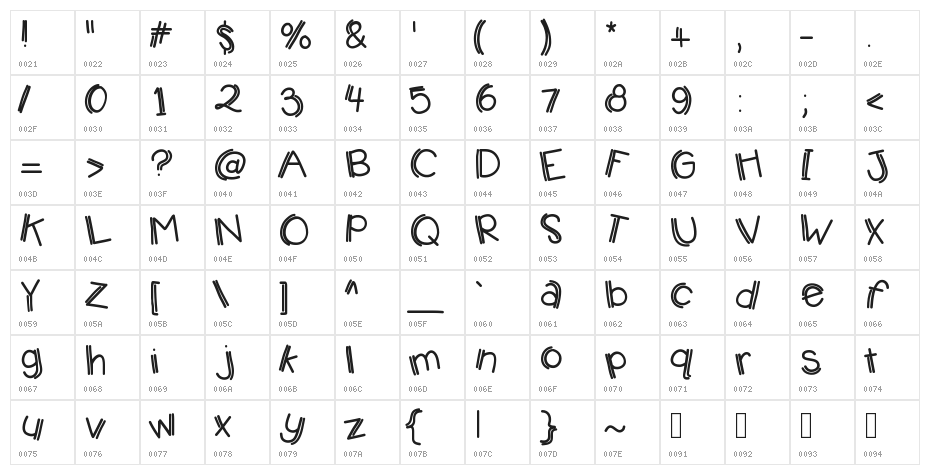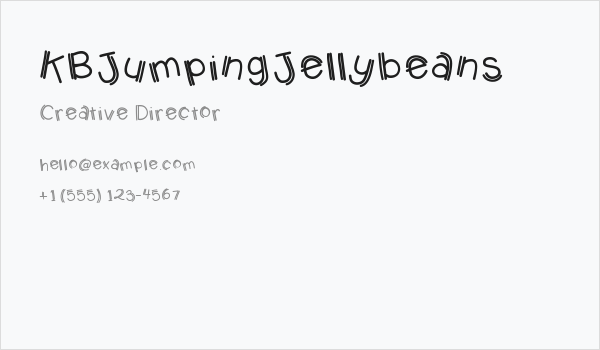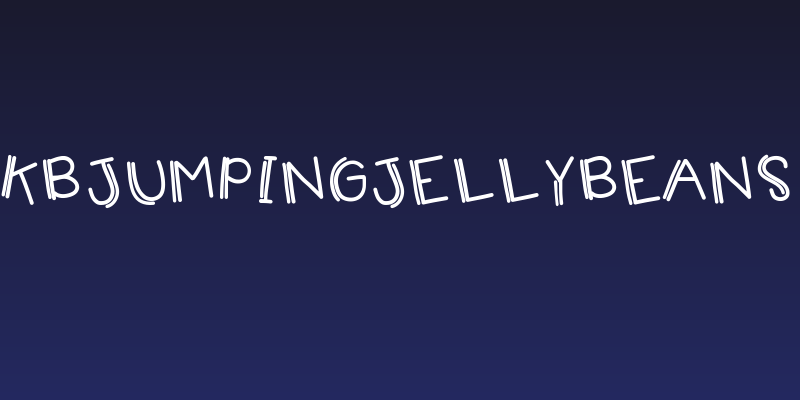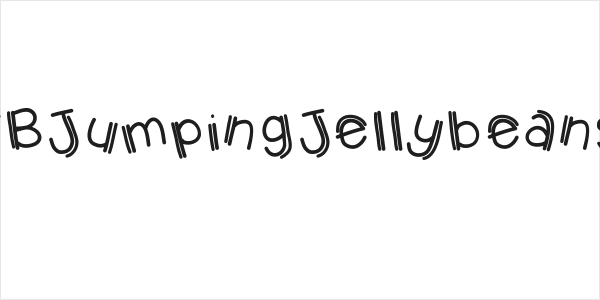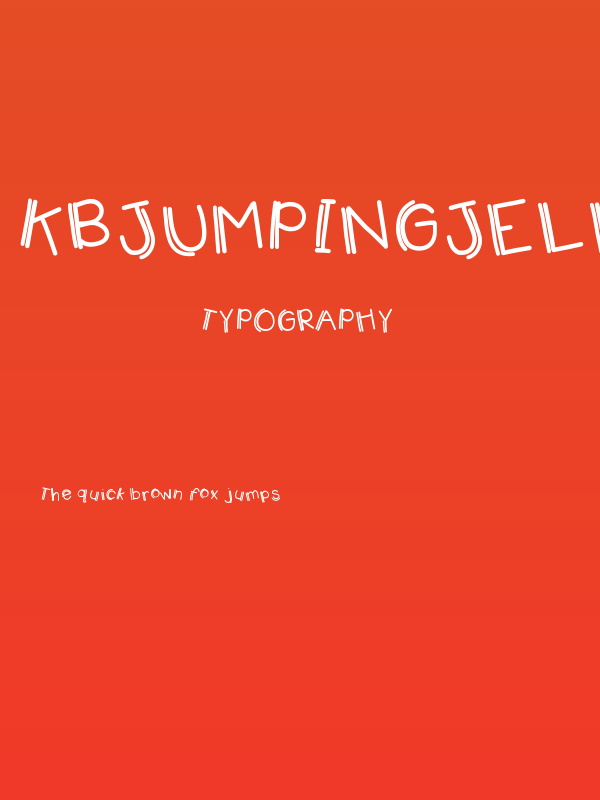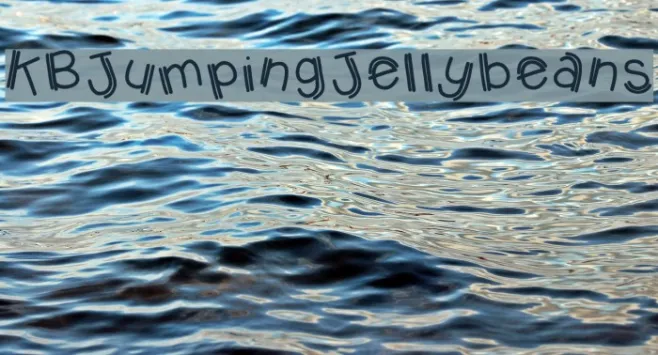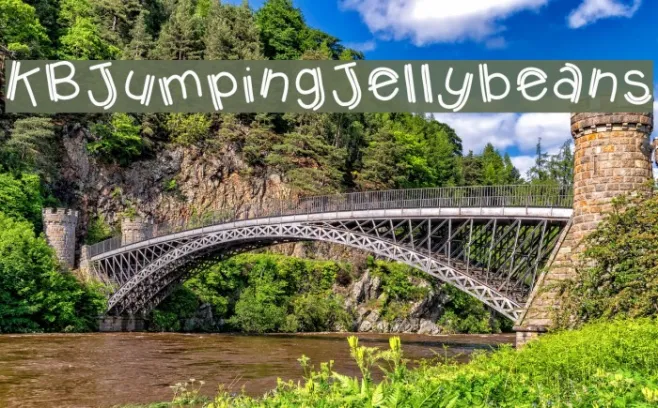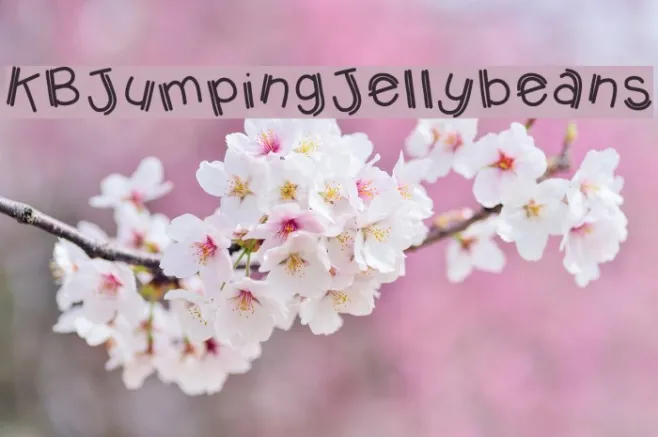
KBJumpingJellybeans Font
KBJumpingJellybeans Description
This playful and whimsical font features a hand-drawn style with a bouncy and energetic appearance. Each character is crafted with a double-line effect, giving it a unique, lively look. The letters are slightly tilted and vary in height, adding to the font's dynamic and informal feel. The rounded edges and irregular shapes contribute to its friendly and approachable nature. This font is perfect for projects that require a fun and lighthearted touch, such as children's books, party invitations, or playful branding.
| Proposed Projects | Ideal for children's books, party invitations, playful branding, and creative posters. |